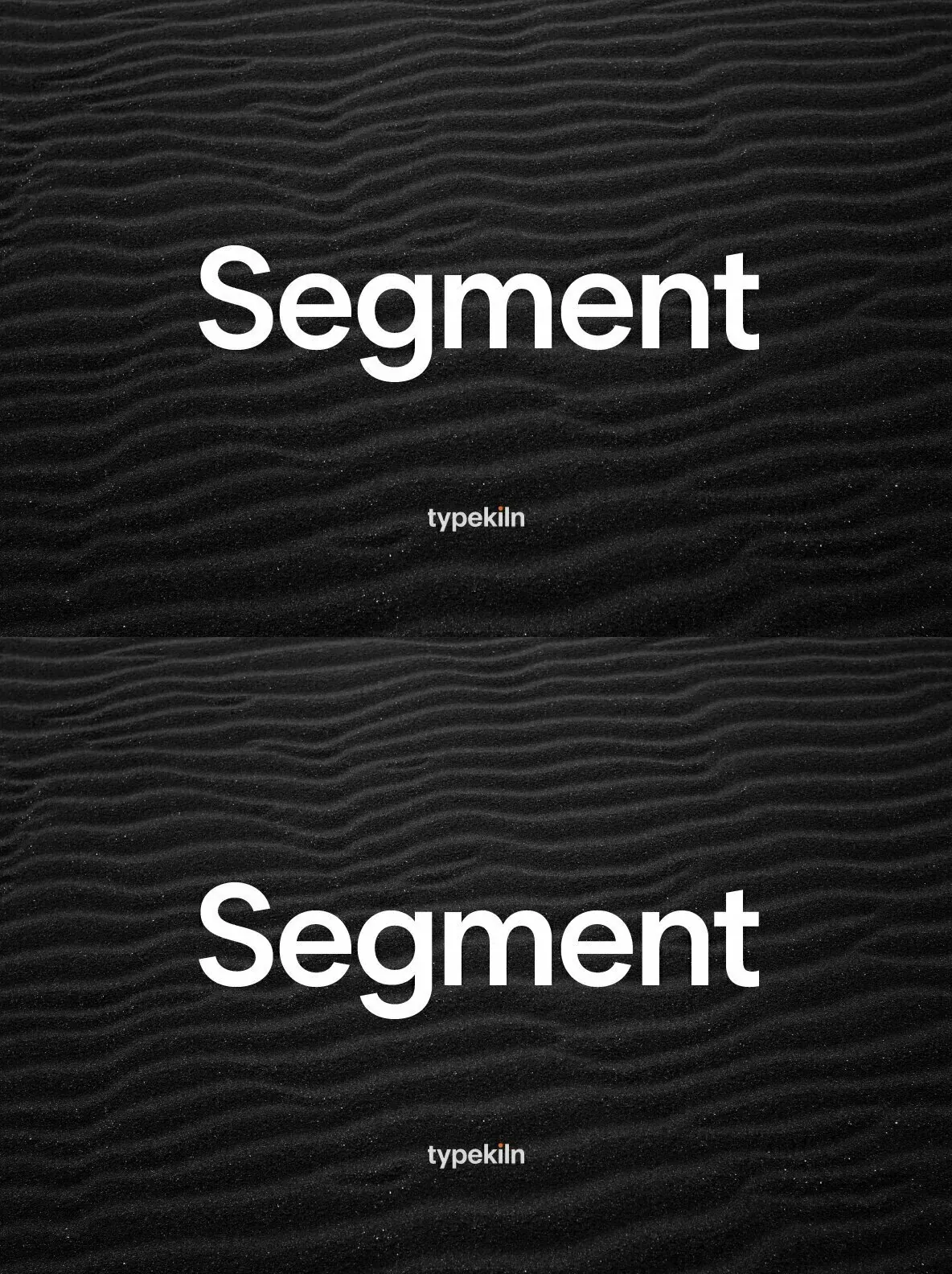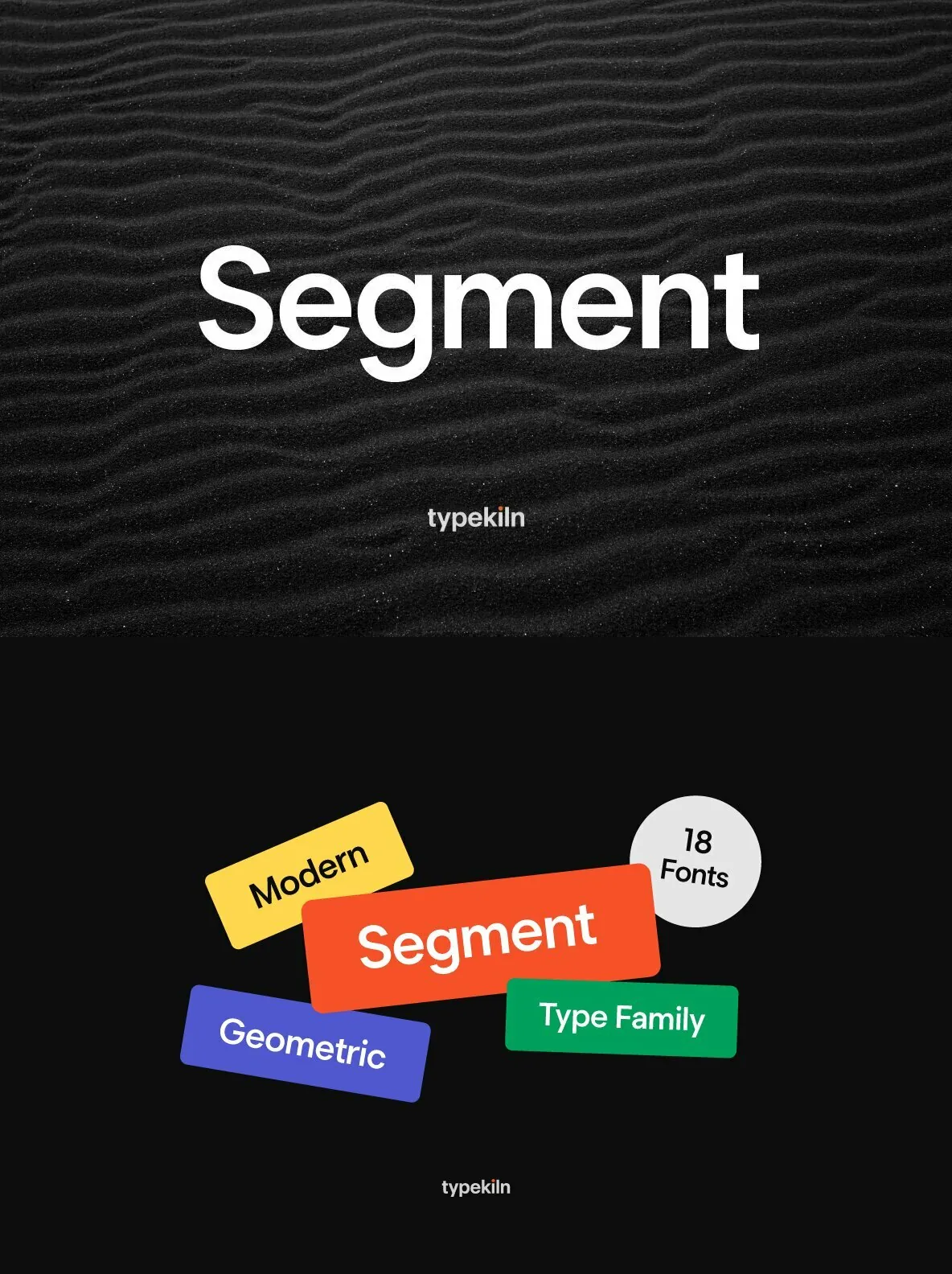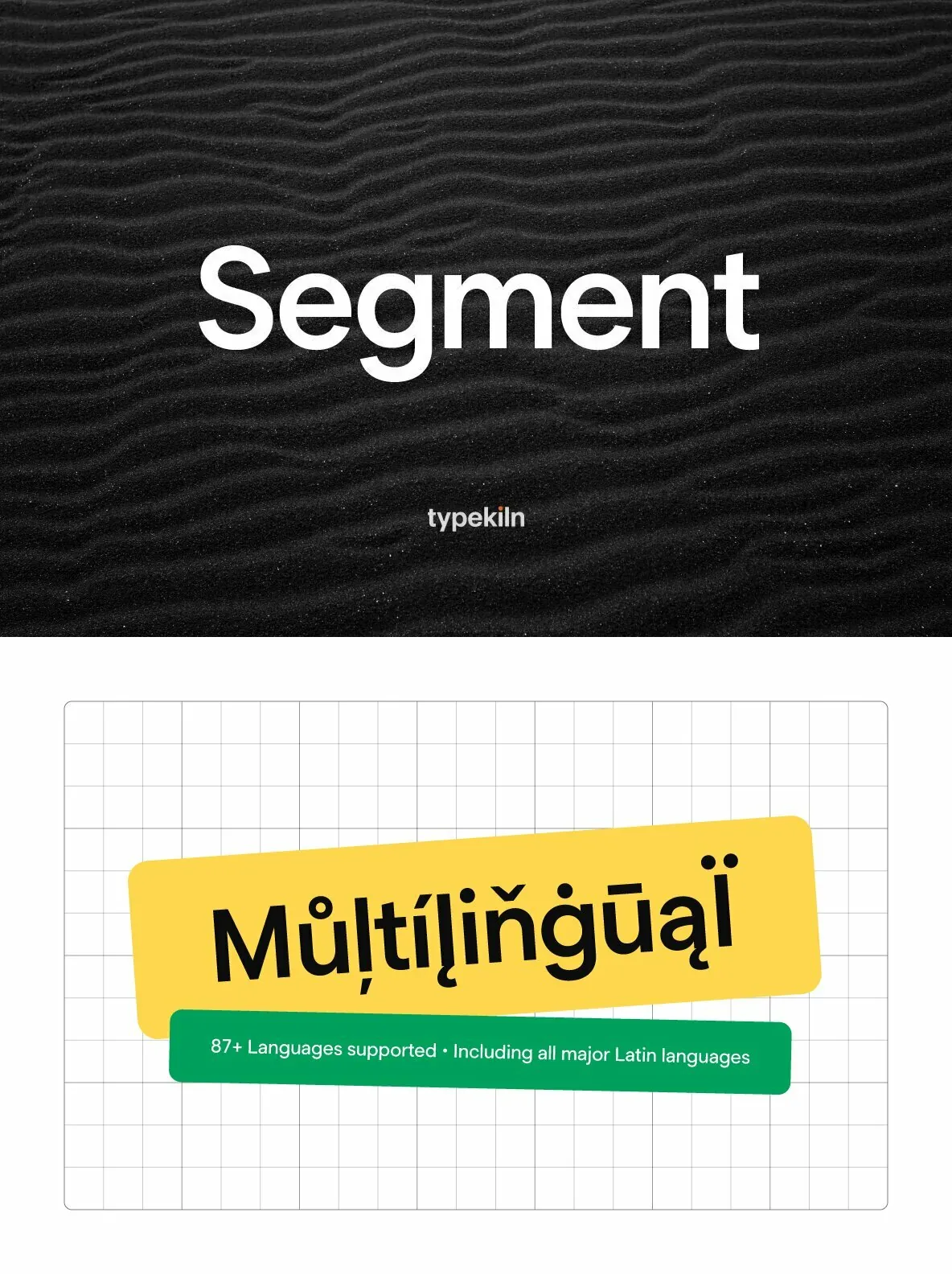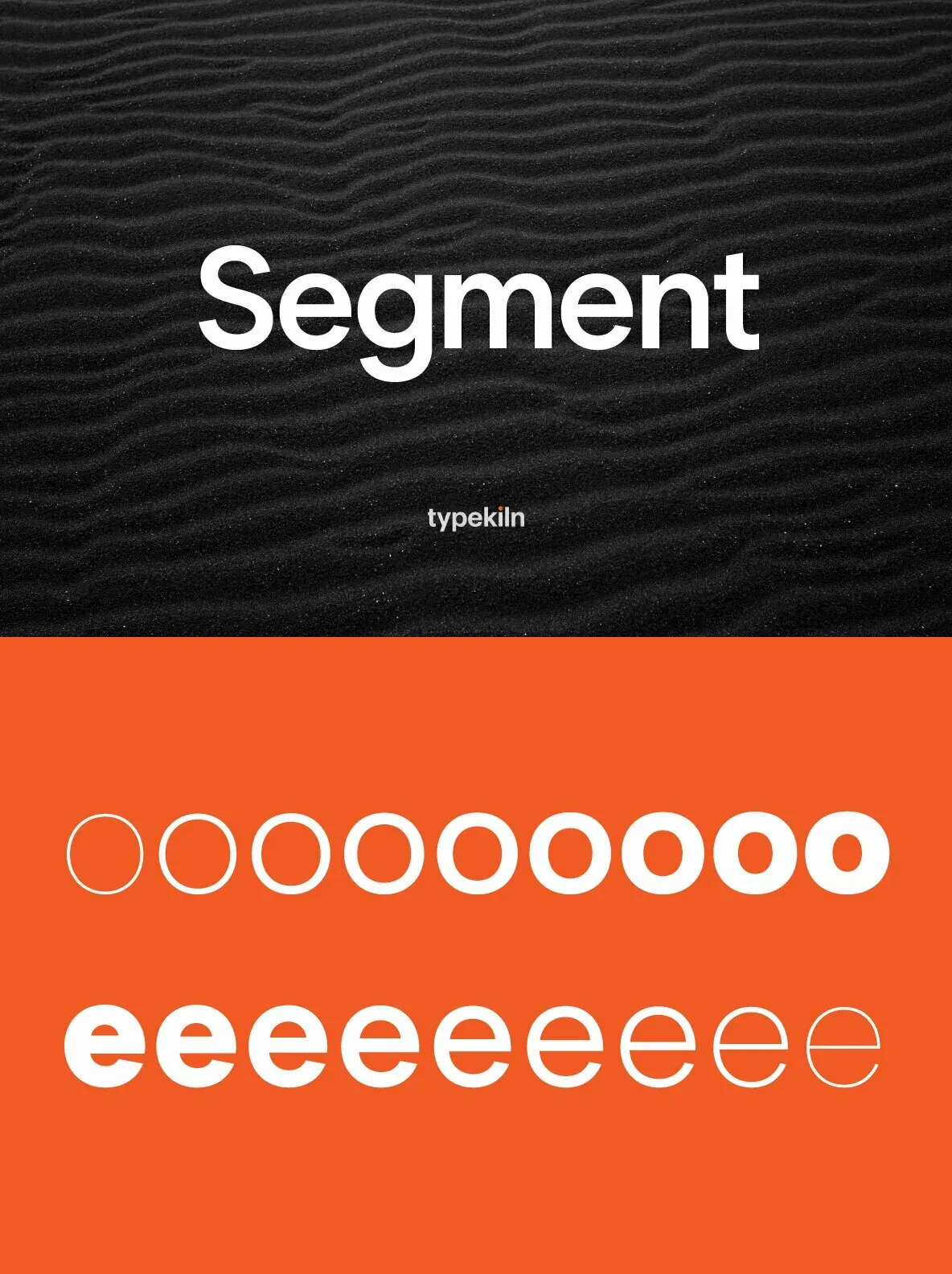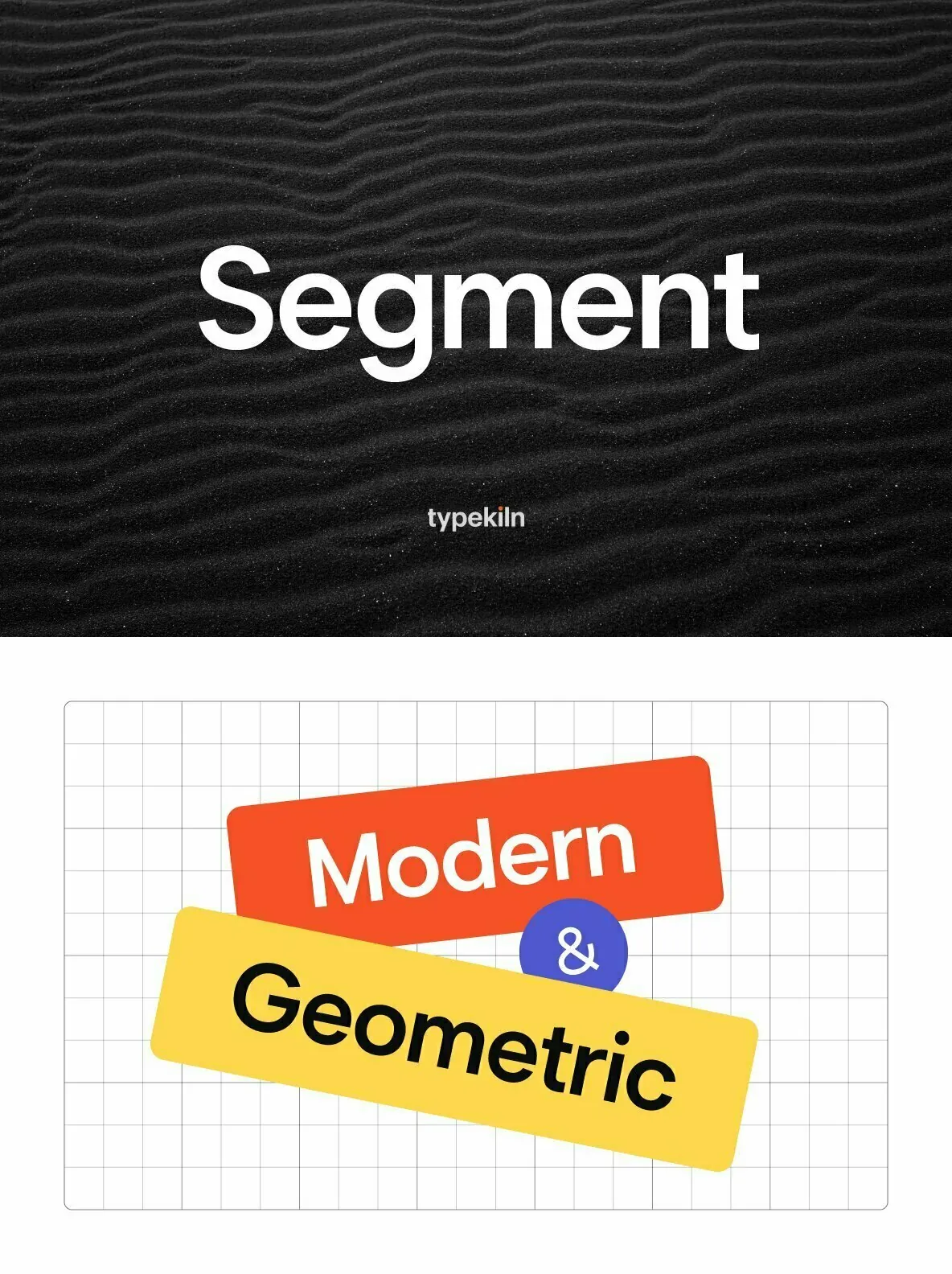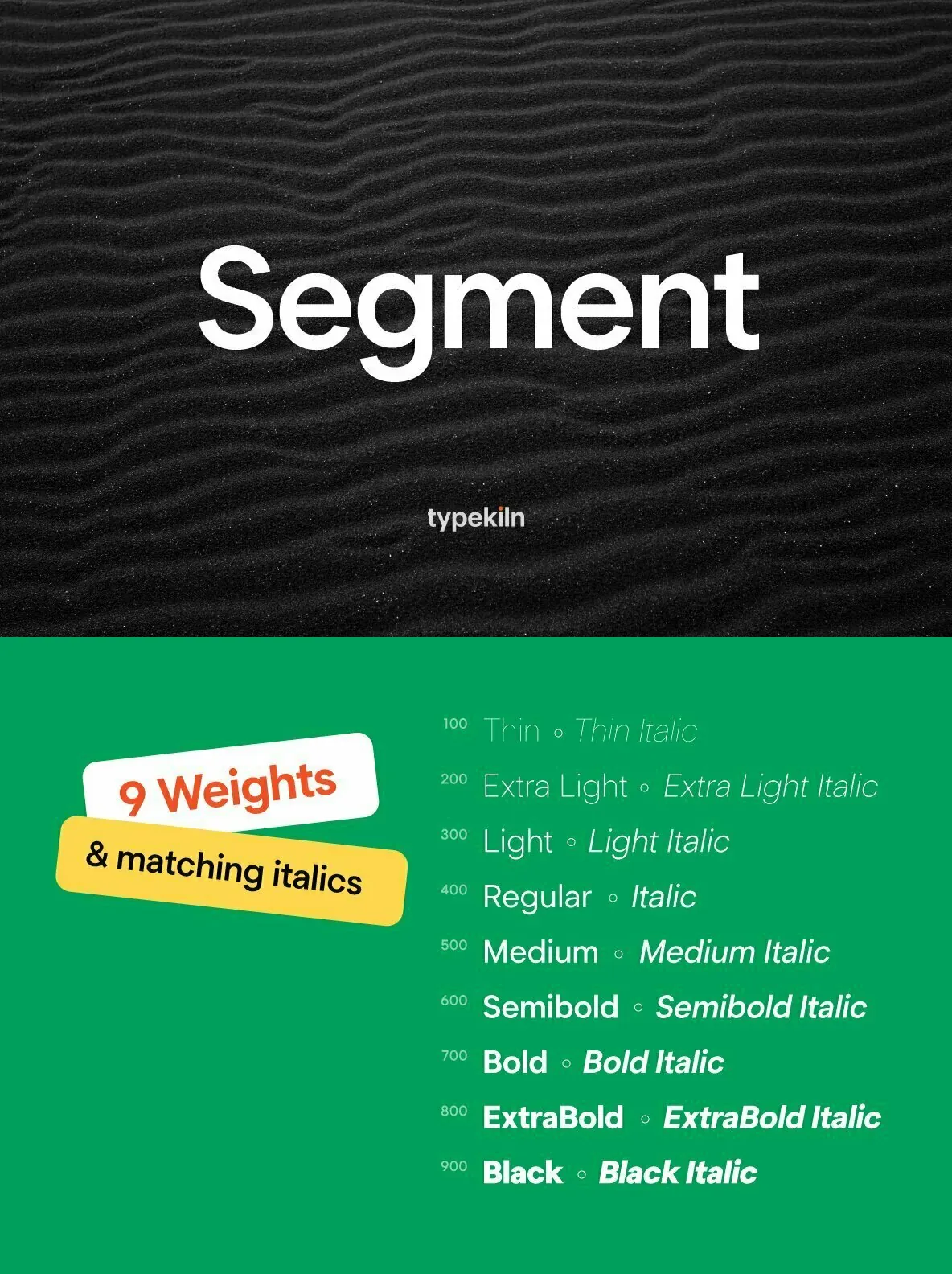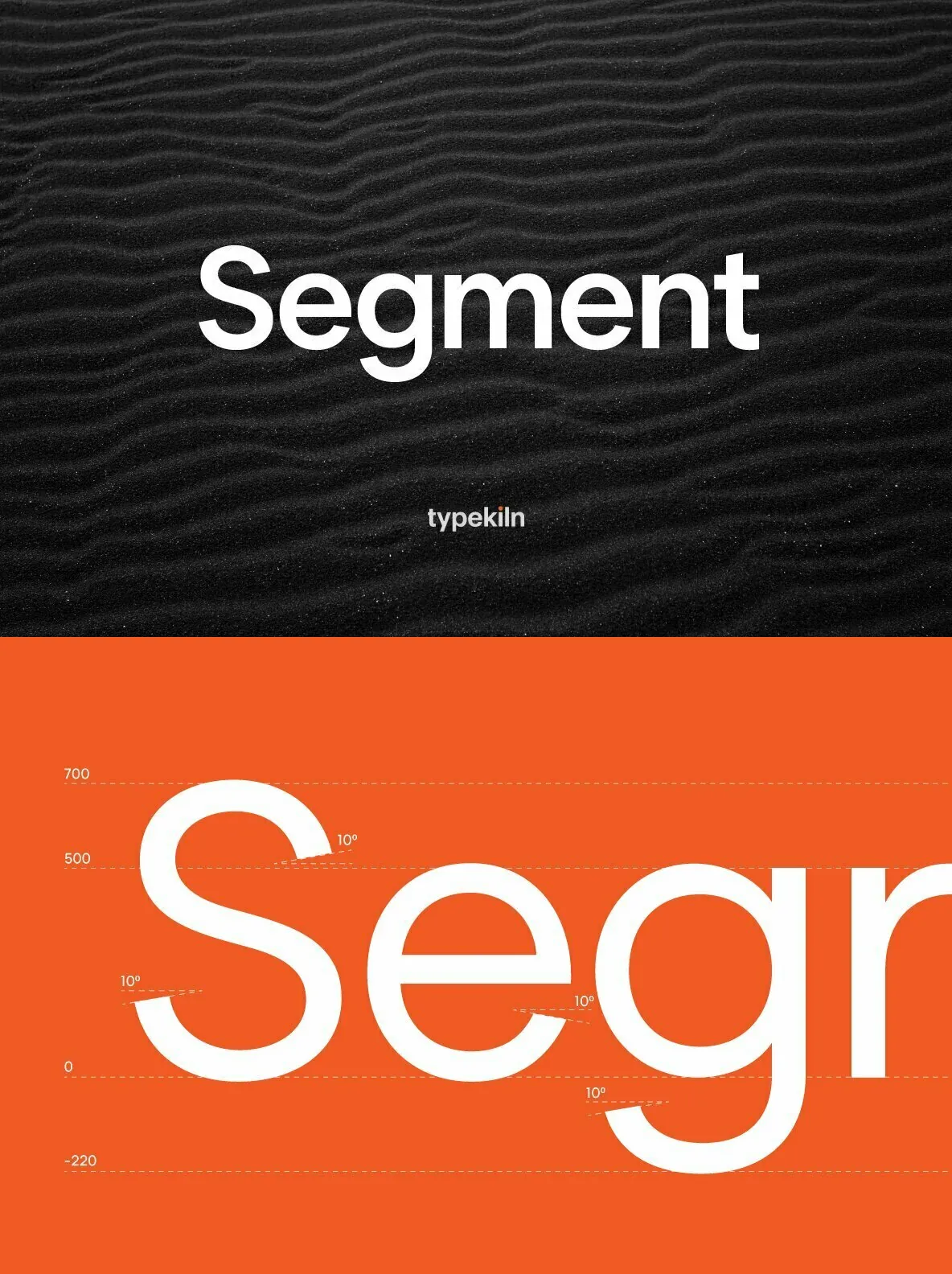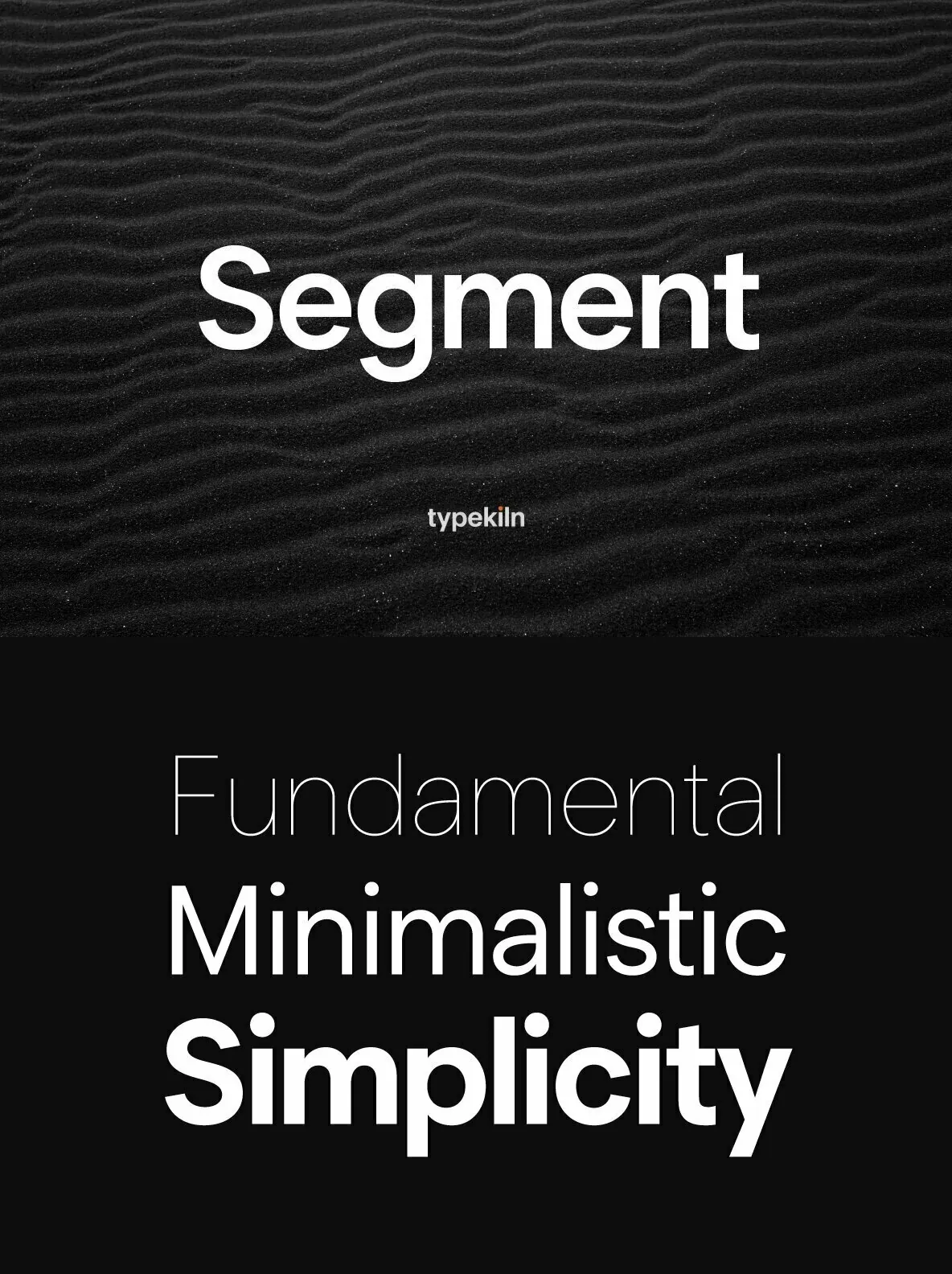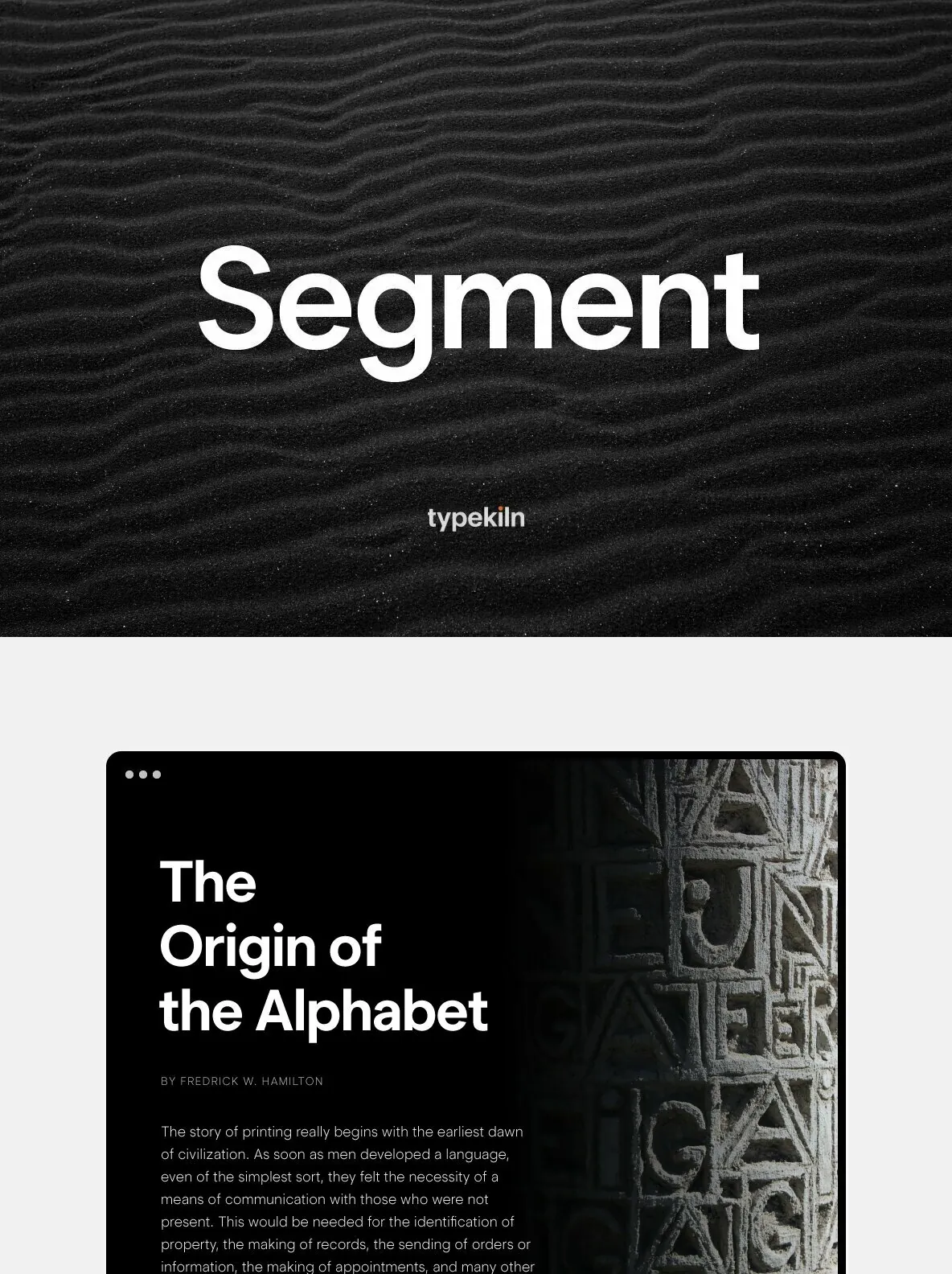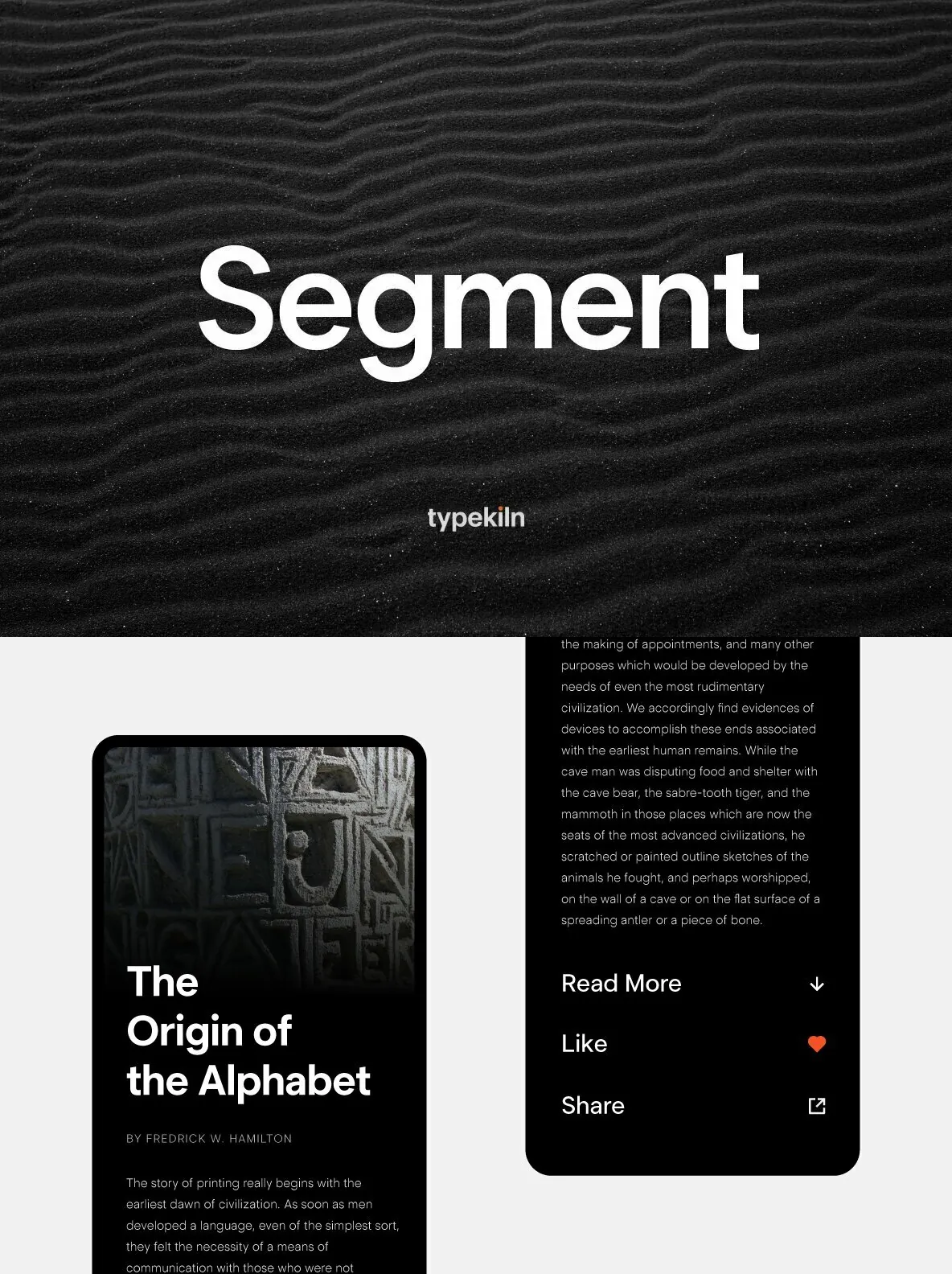
Segment Font
Segment: Geometric Sans Serif With Subtle Warmth
Segment presents a precise approach to geometric sans serif typography, shaped by optically refined structures and minimal stroke contrast. The design’s open apertures and angled terminal ends cultivate clarity and warmth, serving both digital and print environments. Its balanced architecture supports seamless legibility, making it a solid selection for projects seeking a modern yet approachable character. Segment’s versatility extends across a spectrum of applications, from branding systems to user interface components.
Comprehensive family of 18 fonts, including nine upright styles from Thin to Black, each paired with corresponding italics.
Supports over 77 languages, accommodating all major Latin-based scripts.
Extensive OpenType features: stylistic alternates, ligatures, case sensitive forms, tabular and proportional figures, fractions, superscripts, ordinals, and capital spacing for expert typographic control.